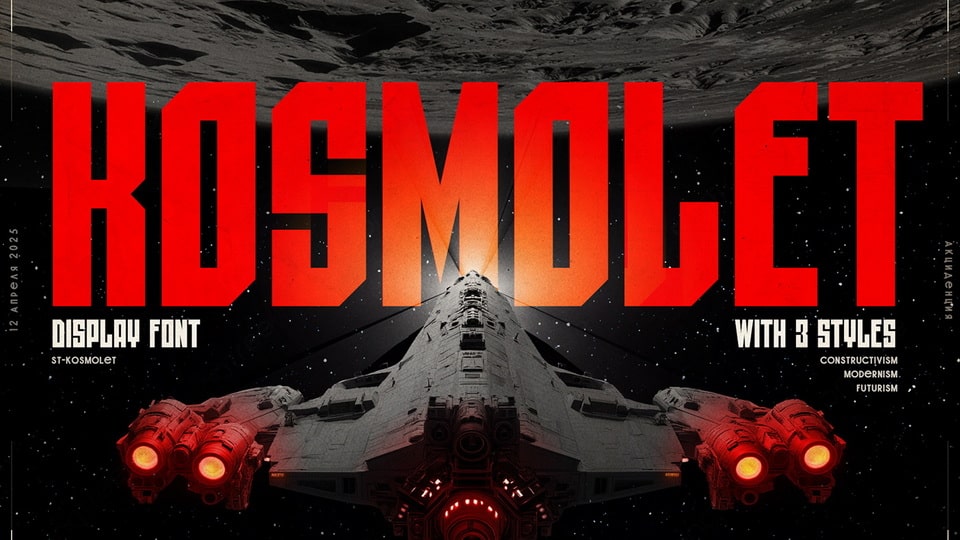
Download ST-Kosmolet font, a dedication to the USSR Space program, the era of scientific romanticism and technical progress. ST-Kosmolet font is proposed for work with display, not recommended for sets of text arrays.
Designer: Alexander Shimanov